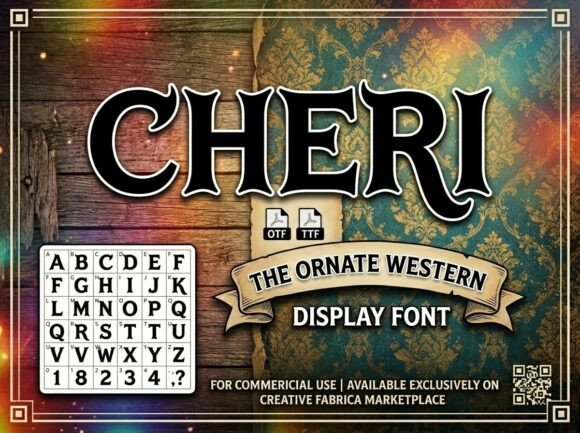
Cheri: The Western Display Font with Rugged Elegance
When a project calls for a voice that’s both bold and refined, the search for the right typeface can feel endless. You need something with presence, something that tells a story before a single word is read. This is where a premium font like Cheri enters the conversation. It’s not just another serif; it’s a crafted piece of visual identity, designed to evoke the rugged elegance of the frontier with a distinctly modern sensibility.
Anatomy of a Modern Frontier Typeface
At first glance, Cheri commands attention. Its high-contrast letterforms are built on a foundation of strength, but the details reveal its sophisticated character. Notice the sharp, distinctive spurs that extend from certain characters, giving the font a dynamic, almost kinetic energy. These aren't merely decorative; they contribute to a rhythm that guides the eye across a line of text. Complementing these are the elegant, sweeping serifs that ground each letter, providing a classic stability that balances the font's more adventurous traits.
This architectural balance is key. Cheri walks a deliberate line between masculine robustness and decorative finesse. It avoids the overtly rustic or cartoonish feel of some Western-themed typefaces, instead offering a display font that feels artisanal and intentional. Its personality is one of confident craftsmanship—the kind you’d find in a well-made saddle, a hand-forged gate, or the label on a small-batch whiskey. This makes it a versatile creative font for brands that want to communicate heritage, quality, and a touch of rugged individualism.
Where Cheri Makes Its Mark: Practical Applications
Understanding a font’s visual style is one thing; knowing where to deploy it is another. Cheri’s strength lies in applications where a strong, memorable impression is paramount. Think of it as a design asset for moments that need to stand out.
The Strategic Value: Beyond Aesthetics
Choosing a typeface like Cheri is a strategic decision that influences more than just how text looks. It directly impacts how your audience perceives and interacts with your brand.
Visual Hierarchy & Readability: As a display font, Cheri is engineered for impact, not for setting long paragraphs. Its high-contrast forms and decorative details are best used in headlines, subheads, or short, impactful statements. Here, it excels at creating a clear visual hierarchy, drawing the viewer’s eye to the most important information first. Pairing it with a clean, highly legible sans serif font or a simple serif font for body copy is a classic and effective font pairing strategy. This contrast ensures your message is both seen and read with ease.
Brand Perception & Recognition: Typography is a silent ambassador for your brand. The choice of Cheri immediately sets expectations. It suggests a brand that values tradition but isn’t stuck in the past, one that appreciates craftsmanship and isn’t afraid of bold expression. This consistency in brand identity builds recognition. When customers see those distinctive spurs and serifs across your logo, website, and packaging, they begin to associate that visual language with your specific values and quality.
Professionalism & Engagement: Using a thoughtfully selected commercial font like Cheri demonstrates a level of care and professionalism that generic fonts cannot. It shows an investment in your brand’s visual language, which can foster greater audience engagement. People are drawn to brands that have a clear, confident aesthetic. The right typeface helps create that cohesive world, making your marketing materials, whether digital or print, feel more polished and trustworthy.
A Practical Guide to Working with Cheri
If you’re considering integrating Cheri into your toolkit, a methodical approach will yield the best results.
1. Evaluate Project Fit: Does your project’s core message align with Cheri’s personality? It’s a superb fit for themes of heritage, craftsmanship, adventure, rustic luxury, and Western modernism. It may be less suitable for projects requiring a minimalist, ultra-clean, or overtly futuristic aesthetic.
2. Test Thoroughly: Always test the font in context. Set your intended headlines or logo text. View it at the sizes it will be used, both on screen and in print if possible. Pay attention to the spacing (kerning) between specific letter pairs, as the decorative elements can sometimes create unique spacing challenges that need adjustment.
3. Explore the Font Family: Check what styles and weights are included. Does it come with a regular, bold, or italic version? Are there alternate characters or ligatures? These extras can provide valuable flexibility for creating variation within your brand identity without introducing a conflicting typeface.
4. Master the Pairing: The goal is to let Cheri shine without overwhelming the design. A simple, geometric sans serif font like Montserrat or a humanist sans serif like Gill Sans often creates a beautiful, balanced contrast. For a more classic feel, pair it with a transitional serif font like Baskerville or Garamond. The key is to let the display font handle the drama and let its partner handle the readability.